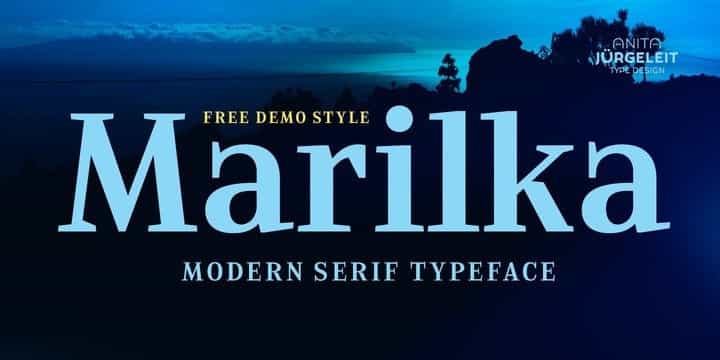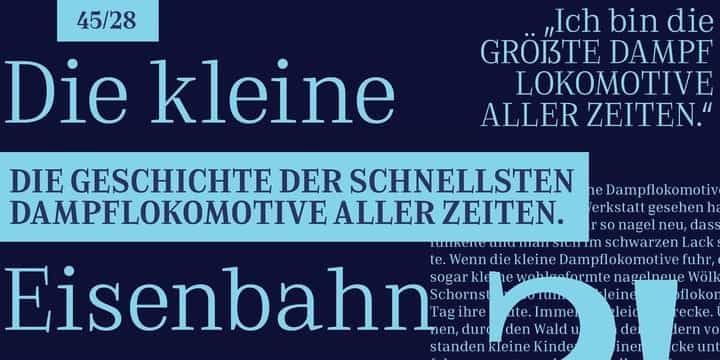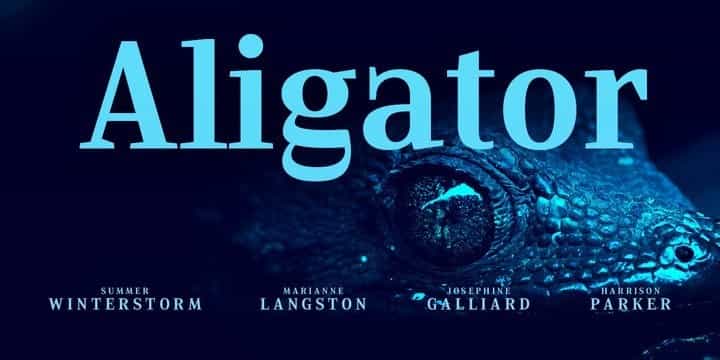
Marilka is a serif font with high contrast with a broad range of applications. Because of the sharp and warm curves combined by sharp serifs bracketed can be used for display purposes.